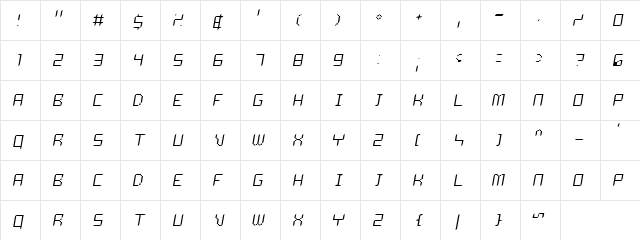
Dalila Light Oblique Regular
Design Context for Dalila Light Oblique Typeface
Dalila Light Oblique is a composed and adaptable typeface that performs quietly and consistently across a wide range of design contexts. The dynamic lean of this cut emphasises speed and emphasis in any layout. The delicate stroke weight brings airiness and refinement to layouts.
Pro Tip: Try Dalila Light Oblique for annotation and caption copy alongside an upright companion — the contrast in angle creates a dynamic but ordered typographic system.